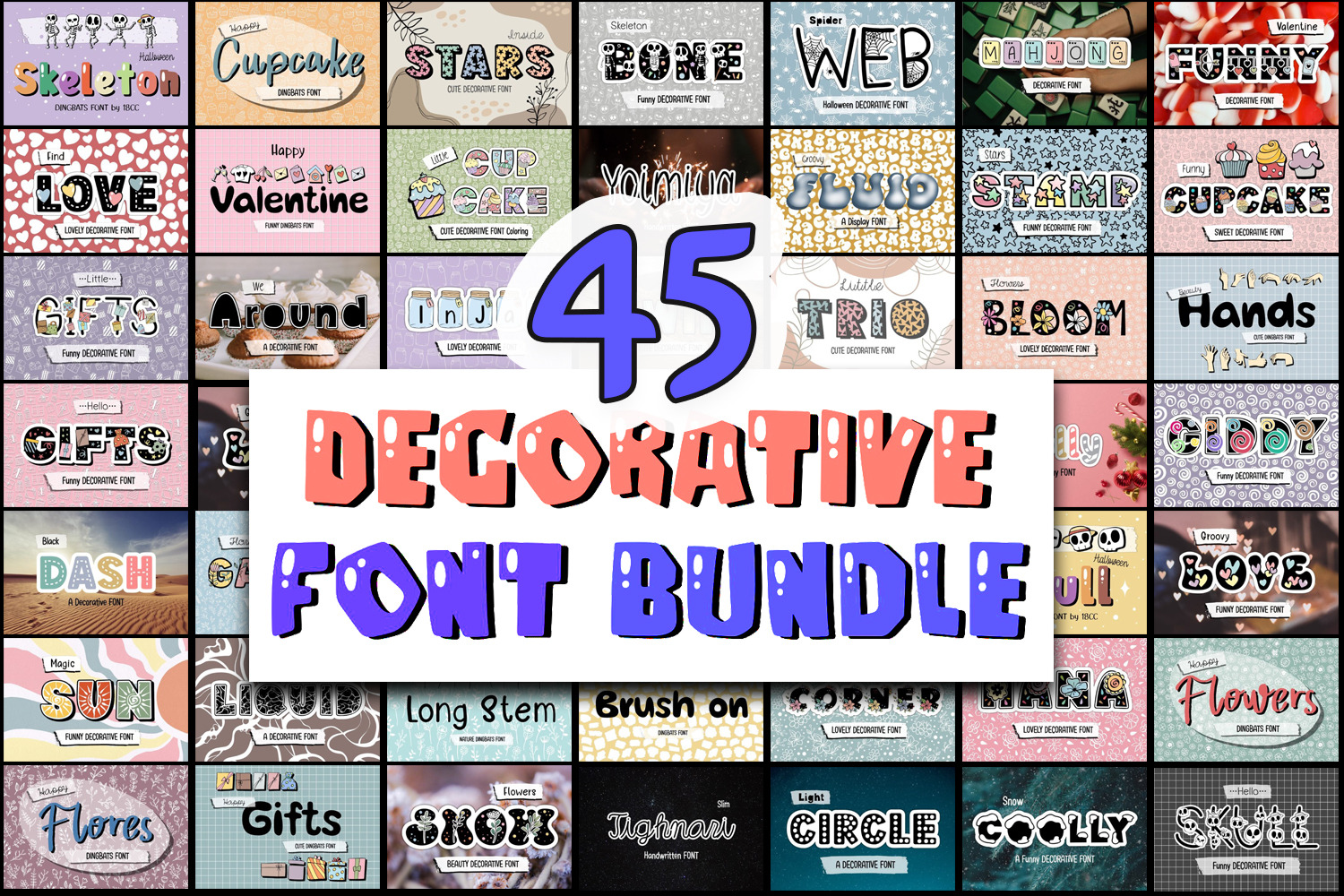
Decorative Font Bundle
The Decorative Font Bundle is a meticulously curated collection of 45 exquisite and visually striking fonts designed to elevate your creative projects. This bundle offers a diverse range of typographic styles, from elegant and sophisticated scripts to bold and playful display fonts, ensuring you have the perfect typeface for any design need. Whether you're working on branding, invitations, social media graphics, posters, or web design, this bundle provides versatility and creativity at your fingertips.
Each font in the collection has been carefully crafted with attention to detail, ensuring high-quality design and readability across various applications. The bundle includes a mix of modern, vintage, hand-drawn, and ornamental fonts, allowing you to experiment with different aesthetics and find the ideal match for your project's tone and purpose.